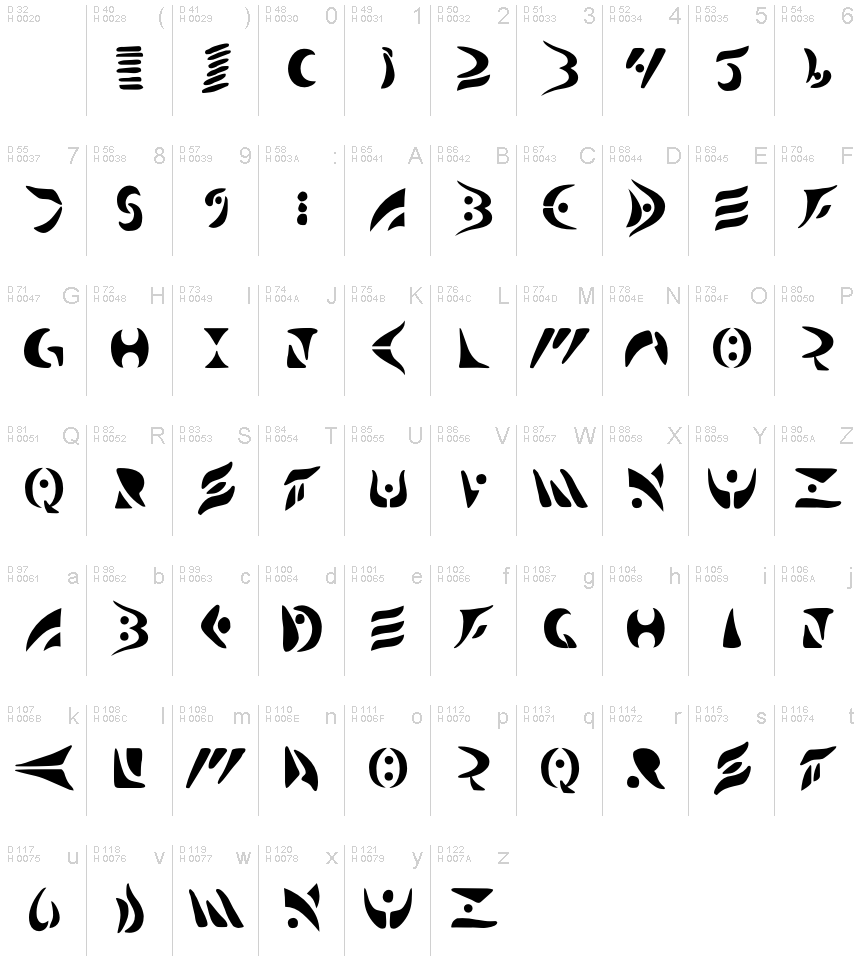
Bullskrit NFI
Bullskrit NFI is a striking display font that exudes a bold, contemporary aesthetic. Designed by Tom Sullivan and Thomas W. Otto of Norfok Incredible Font Design, this typeface boasts a unique blend of sharp angles, organic curves, and distinctive letterforms.
The unconventional character shapes and asymmetrical structure give Bullskrit NFI a captivating, almost typographic-inspired quality, making it a versatile choice for bold headings, attention-grabbing logos, or eye-catching branding applications.
Its striking visual impact and strong personality make Bullskrit NFI an excellent selection for designers seeking to create impactful, memorable typographic compositions.
The unconventional character shapes and asymmetrical structure give Bullskrit NFI a captivating, almost typographic-inspired quality, making it a versatile choice for bold headings, attention-grabbing logos, or eye-catching branding applications.
Its striking visual impact and strong personality make Bullskrit NFI an excellent selection for designers seeking to create impactful, memorable typographic compositions.